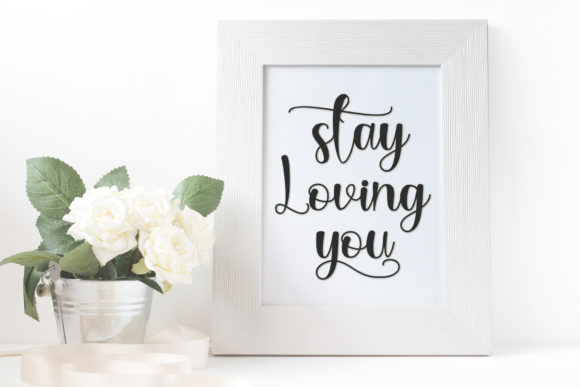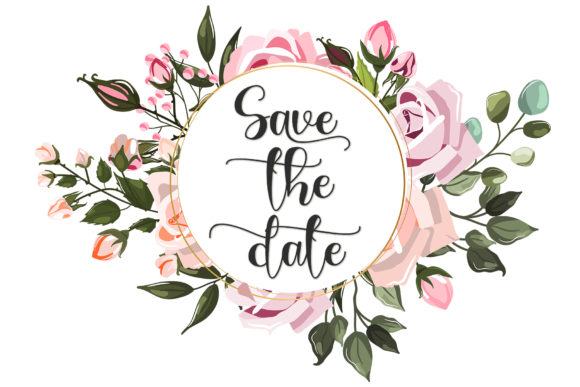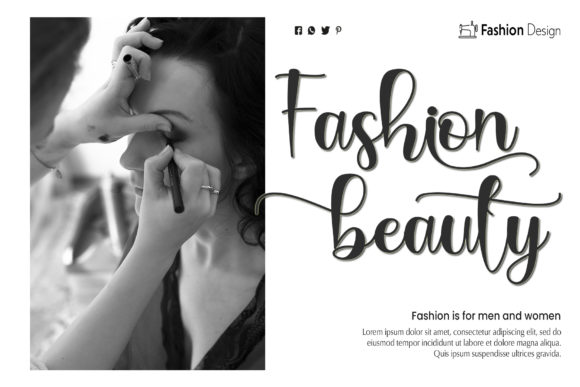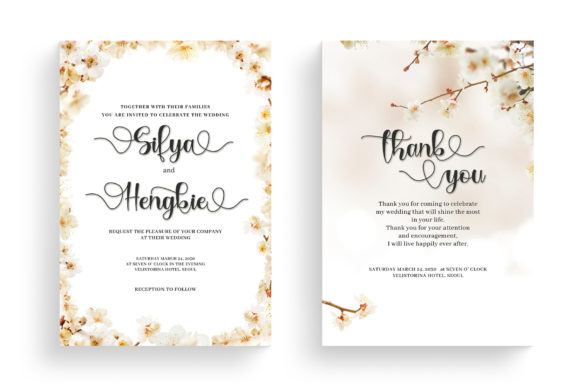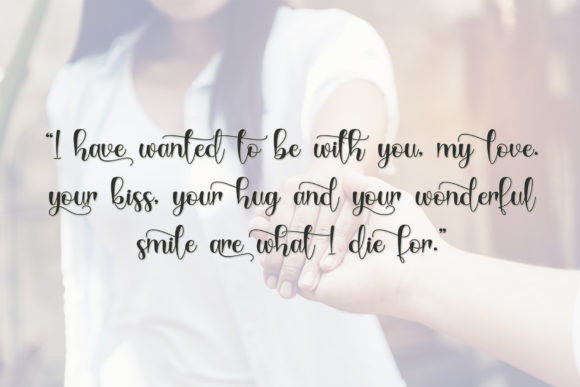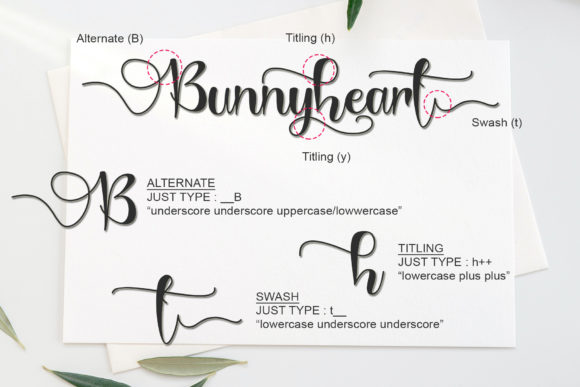
The Bunnyheart Font: A Designer’s New Best Friend
I’ll never forget the time I was working on a project for a client who needed a custom greeting card design. I had all the elements ready – the graphics, the layout, and the text – but something was missing. The font I had chosen just wasn’t doing justice to the design. That’s when I stumbled upon the Bunnyheart font, and it completely transformed my design. In this article, I’ll share my experience with this unique font, its features, and how you can make the most of it in your designs.
A Personal Review: What I Love About Bunnyheart
Bunnyheart is an incredibly unique handwritten font that has quickly become a favorite of mine. Here are some things I love about it:
- ✨ Versatility: Bunnyheart is perfect for various design projects, including crafting, digital designing, presentations, and greeting card making.
- ✅ Ease of use: The font is PUA encoded, which means you can access all the glyphs and swashes with ease.
- 💕 Unique style: The font has an incredibly versatile style that can add a touch of personality to your designs.
While I love Bunnyheart, there are a few small quirks to keep in mind:
- 🤔 Learning curve: If you’re new to using OpenType features or glyphs, it might take some time to get familiar with the font’s capabilities.
- ⚠️ Limited use cases: While Bunnyheart is versatile, it might not be the best fit for very formal or traditional designs.
Bunnyheart was designed with the intention of creating a unique and versatile font that could be used for a variety of design projects. The designer wanted to create a font that was both elegant and playful, with a touch of whimsy. The result is a font that’s perfect for designers who want to add a personal touch to their designs.
| Q: What is Bunnyheart? | A: Bunnyheart is a unique handwritten font that’s perfect for various design projects. |
| Q: Is Bunnyheart PUA encoded? | A: Yes, Bunnyheart is PUA encoded, which means you can access all the glyphs and swashes with ease. |